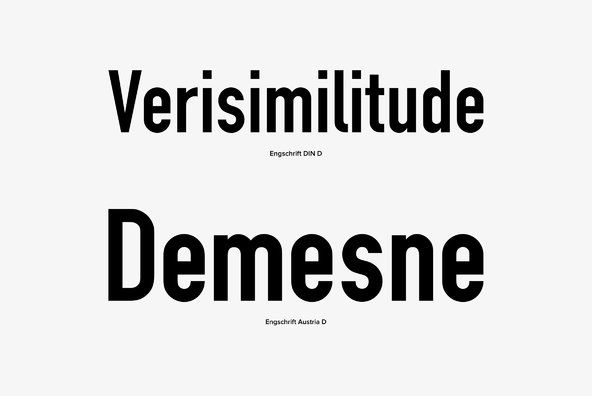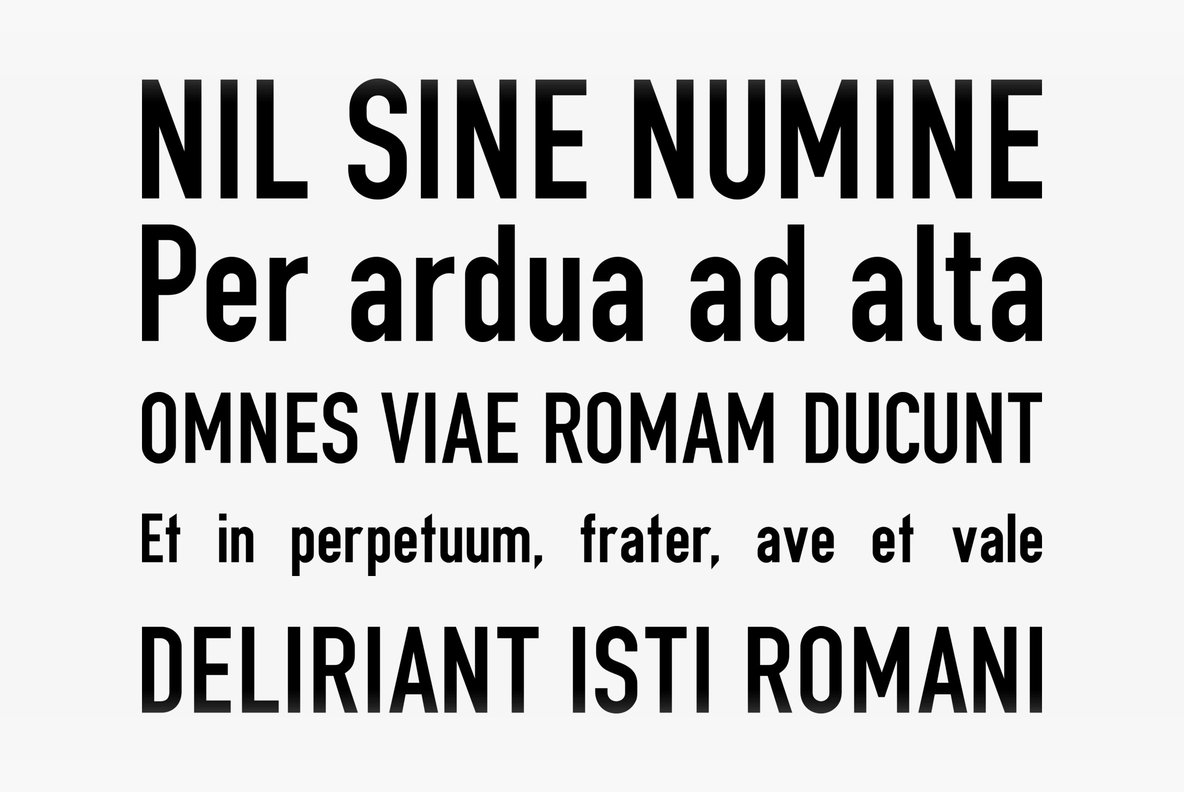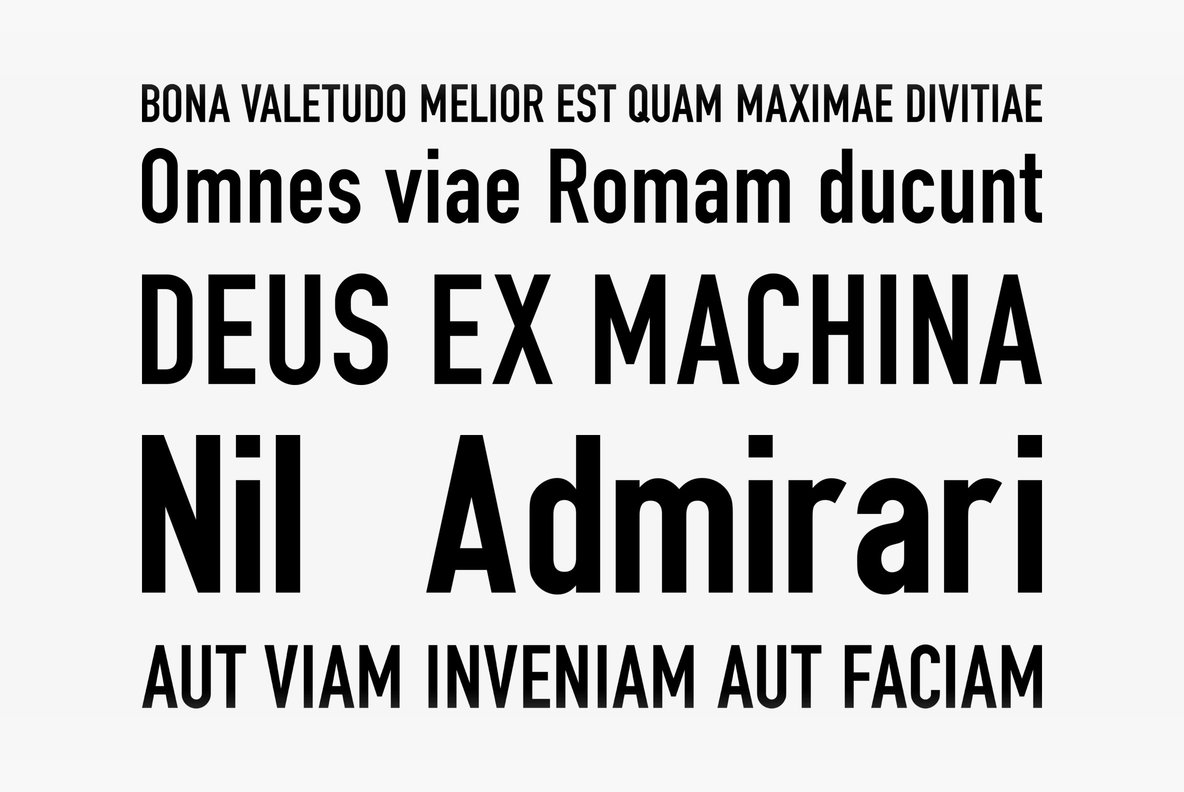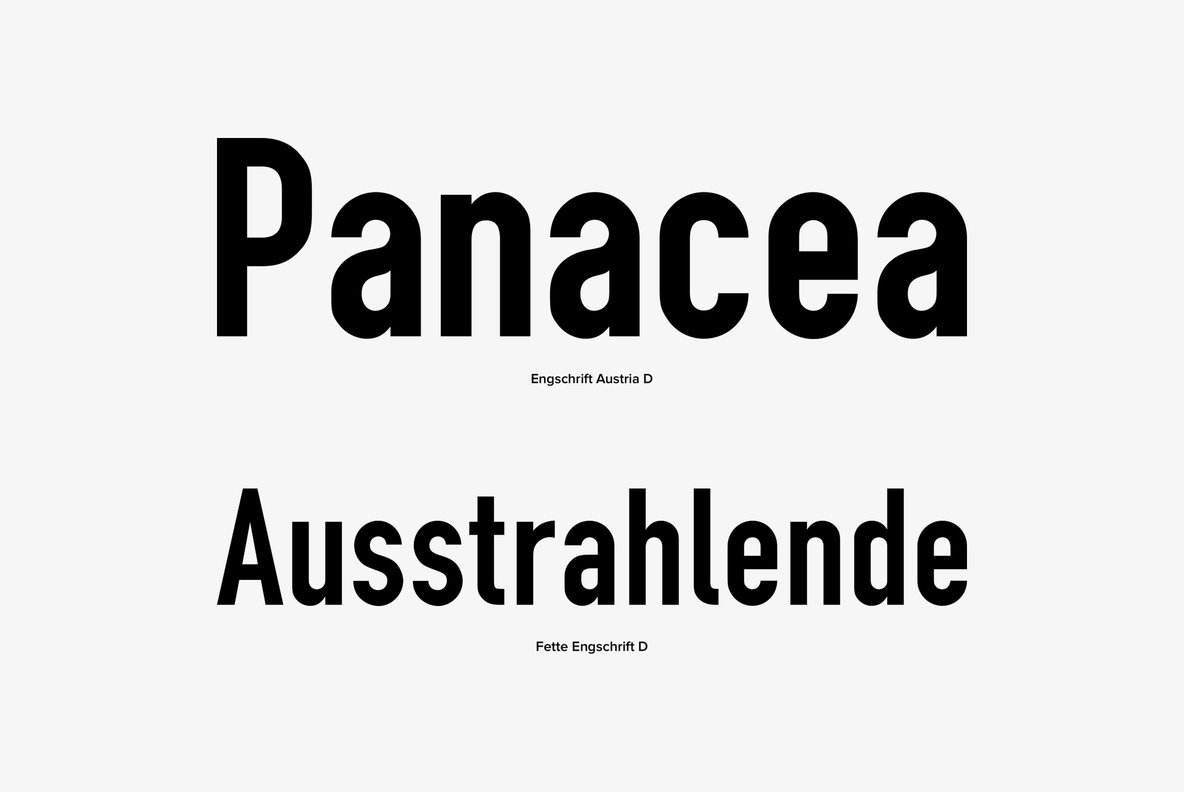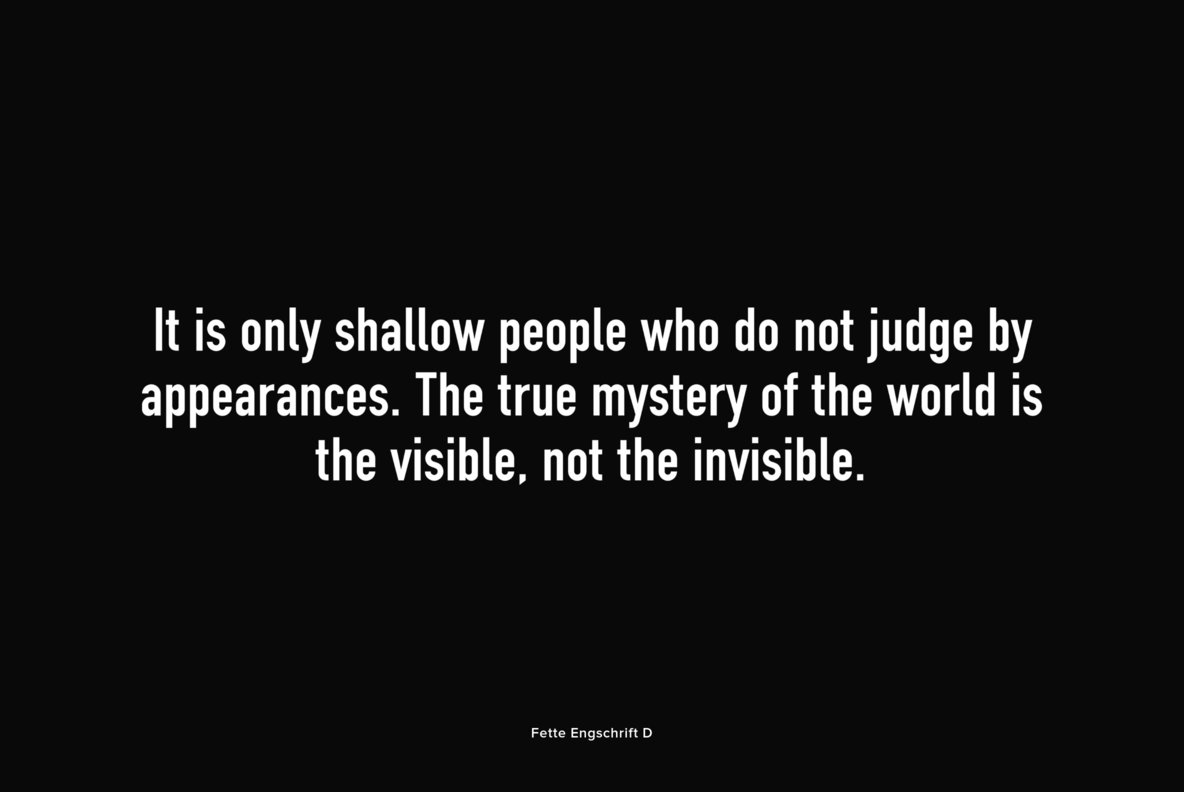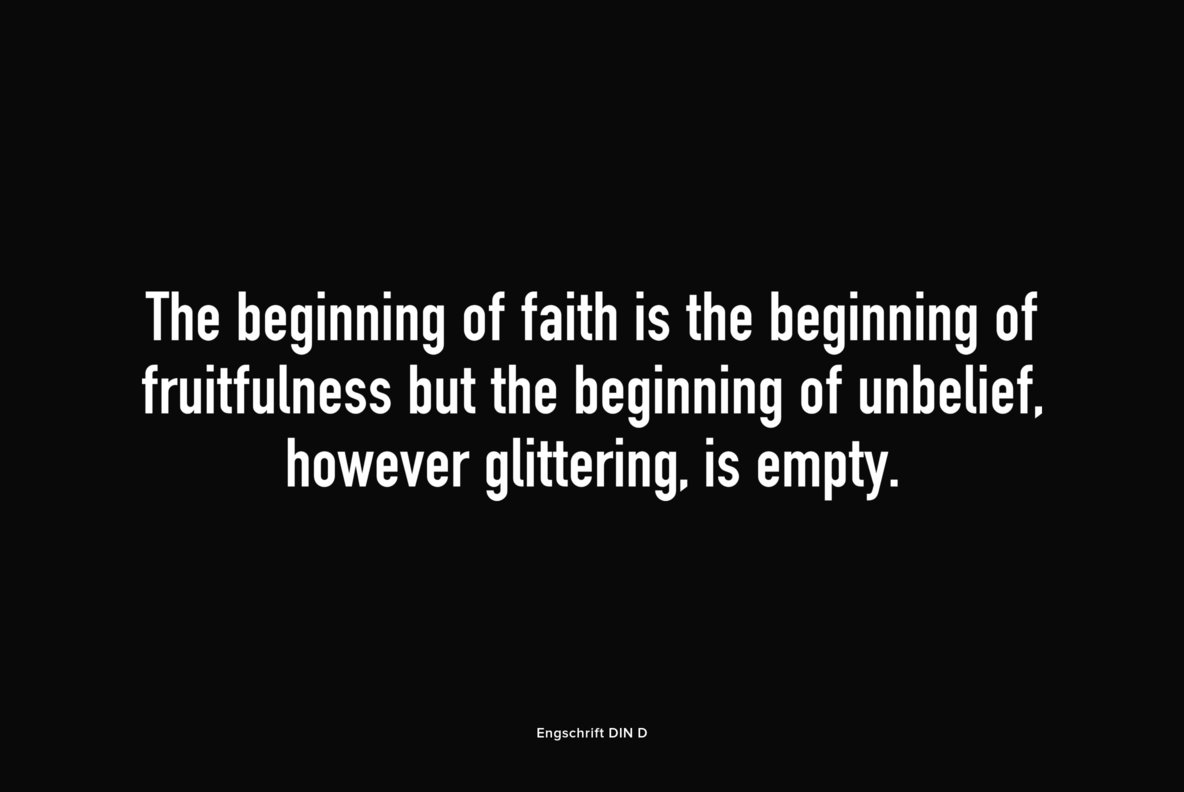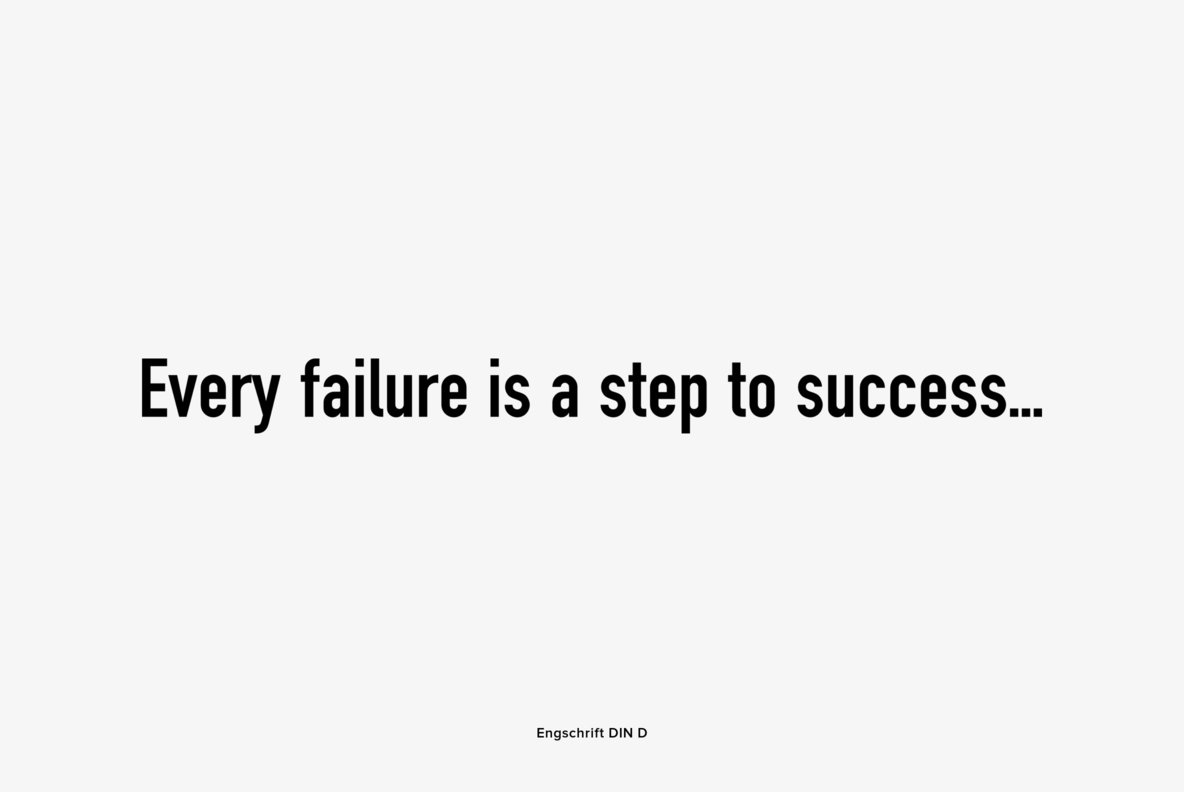
Designed by various designers for signage use, Engschrift is a sans-serif font release by URW. Contains language support for West, East, Turkish, Baltic, and Romanian.